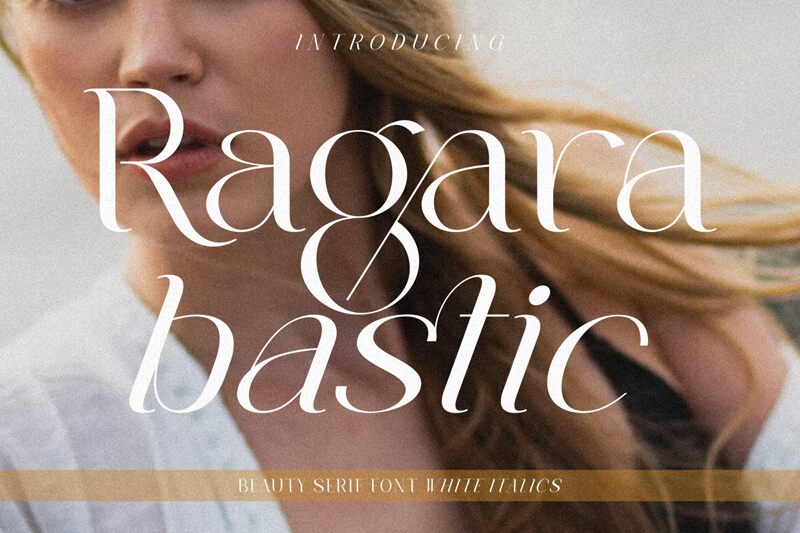
Ragara, designed by Penatic Studio, is an elegant serif font with a semi-light weight. Its refined curves and delicate serifs exude sophistication, making it perfect for luxury brand logos and high-end product packaging.
With its timeless appeal, Ragara adds a touch of class to wedding invitations and formal event stationery. This typeface's legibility also makes it suitable for book covers and editorial layouts, enhancing the reading experience while maintaining an air of elegance.
Whether used in digital or print media, Ragara effortlessly elevates any project with its elegant charm.